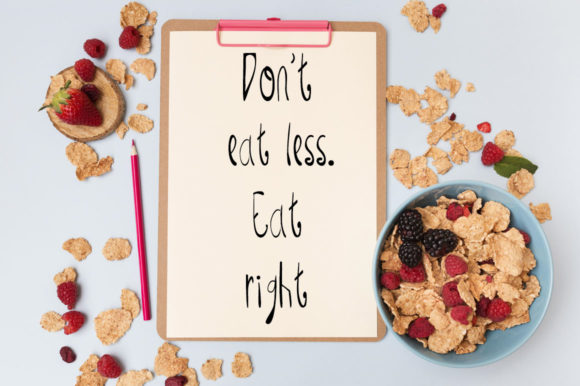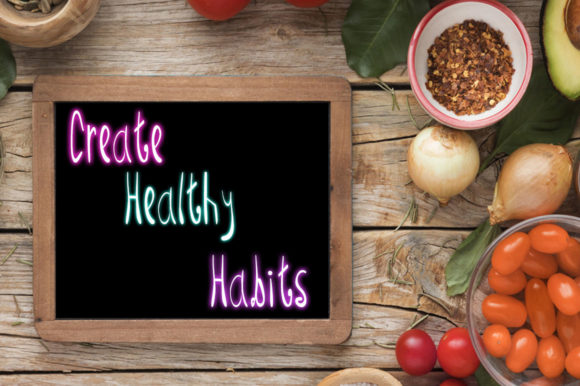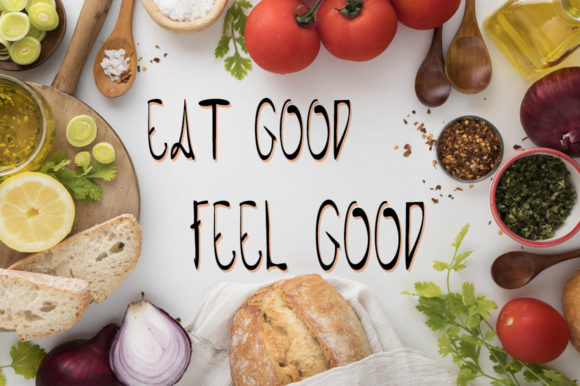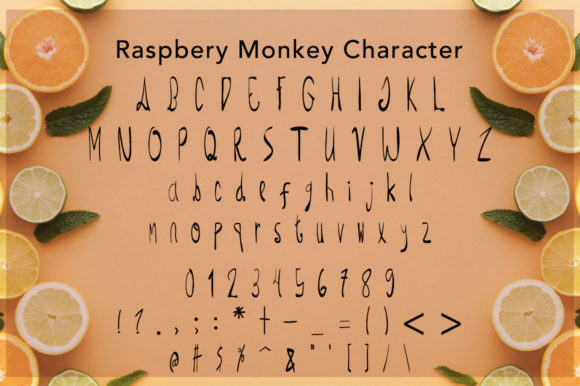
Introduction to Raspberry Monkey Font
Do you remember that moment when you stumbled upon the perfect design element and your creative project suddenly came alive? For designers, discovering a high-quality font like the Raspberry Monkey Font can be just that game-changing moment.
As a design resource, Raspberry Monkey Font offers a unique and versatile style that’s perfect for creating stunning graphics, from wedding invitations to social media posts. With its transparent background and effortless feel, this cute and casual handwritten font is an ideal choice for designers looking to add a touch of personality to their work.
Key Features of Raspberry Monkey Font
- High-quality design resource ideal for creative projects, such as digital art and graphic design.
- Features a unique, playful design that is sure to add a touch of whimsy to any project.
Honest Review: Raspberry Monkey Font
I recently had the chance to work with the Raspberry Monkey Font, and I must say it’s a game-changer for designers. This free download is a high-quality addition to any design resource, offering a unique and playful touch to creative projects.
- ✨ Unique and quirky design: The Raspberry Monkey Font is not your average font. Its fun and whimsical feel makes it perfect for projects that need a little extra personality.
- ✨ High-quality glyphs: The font is well-designed, with crisp and clear glyphs that print beautifully.
- ✨ Transparent background: The font is fully transparent, making it easy to use with background images and colors.
- ⚠️ Limited font family: The Raspberry Monkey Font is a single font, which may not be suitable for projects that require multiple font styles.
- ⚠️ Not suitable for formal projects: The font’s playful design may not be suitable for formal or professional projects.
Overall, I’m impressed with the Raspberry Monkey Font. It’s a fun and creative addition to any design resource, and its high-quality design makes it a great choice for designers looking to add a little personality to their projects.